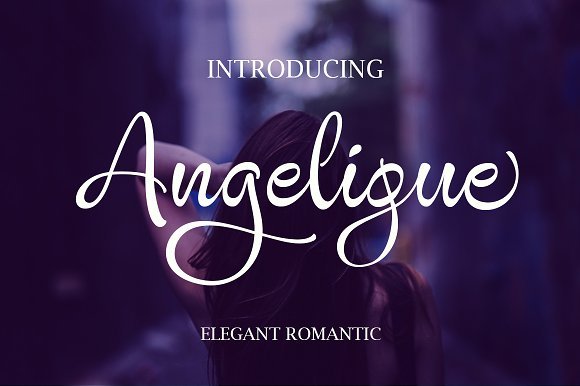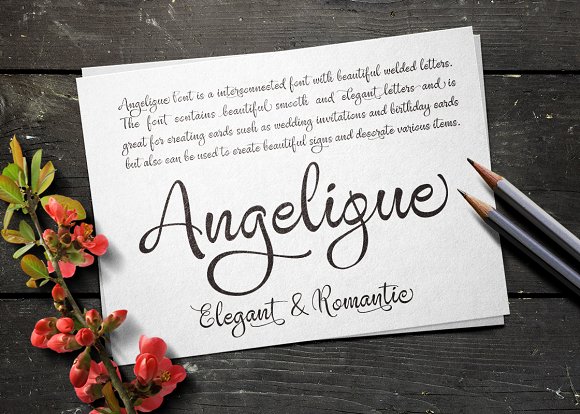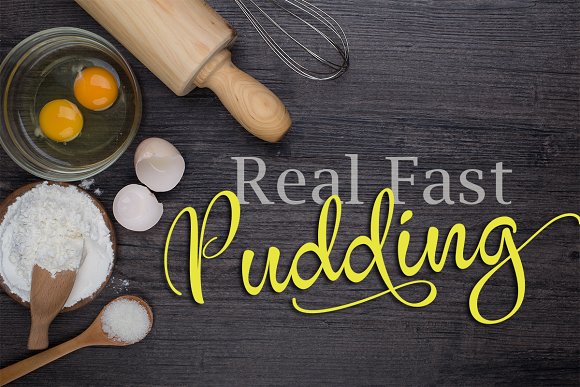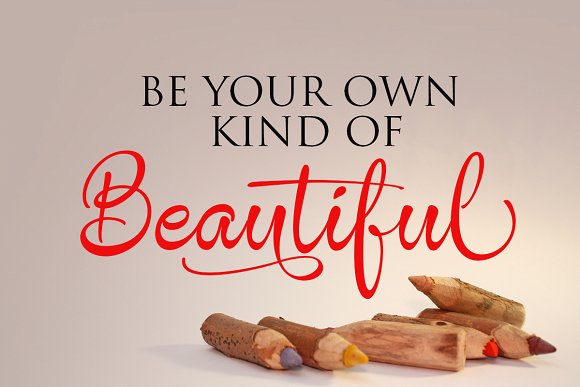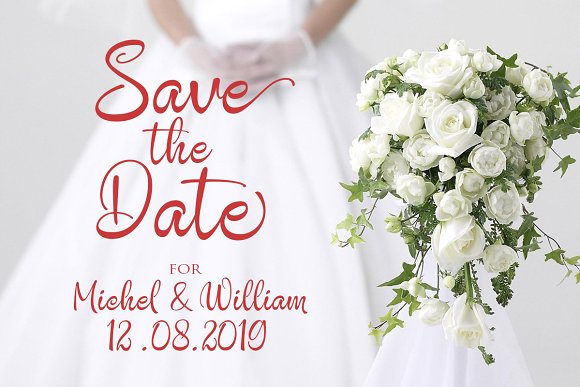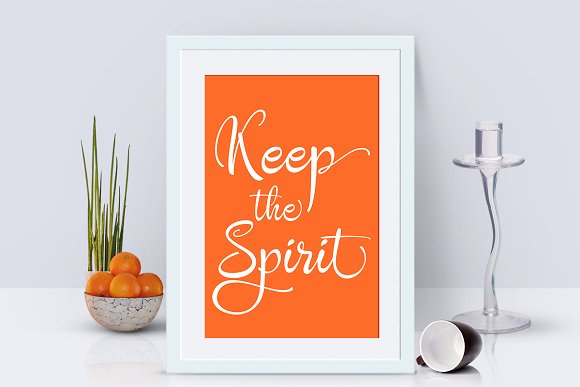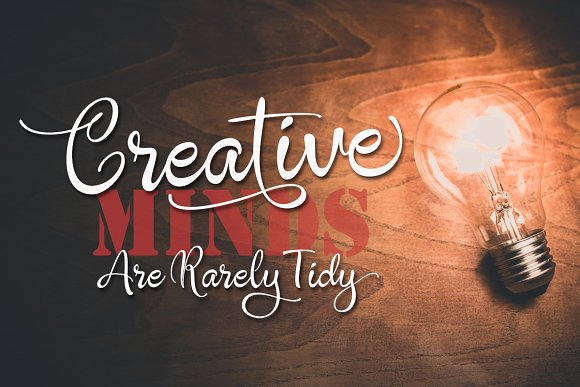
The Magic of Handwritten Fonts: Unleashing Creativity with Angelique Font
Do you ever get that spark of creativity when you’re brainstorming a new design project? The ideas flow, and you feel like you’re on top of the world? For designers, those moments are what make it all worth it. And, sometimes, it’s the perfect font that brings it all together.
That’s where the Angelique Font comes in – a stunning interconnected handwritten font that’s sure to bring a smile to your face. Its unique design, where letters seamlessly weld together, makes it a joy to work with. Whether you’re designing a logo, a poster, or a wedding invitation, Angelique Font is the perfect companion to help you bring your ideas to life.
- Unique Characteristics: Angelique features a unique, elegant script design with subtle flair and connections between letters, making it suitable for invitations, wedding stationery, and other formal events.
Angelique Font Review
Overall, I’d say Angelique Font is a solid choice for your next design project. Here’s what works well:
- ✨ Elegant and sophisticated feel: This font exudes refinement and poise, perfect for high-end branding, luxury products, or sophisticated marketing materials.
- ✨ Beautiful script and cursive connections: The flowing connections between letters create a sense of continuity and fluidity, making it ideal for headings, titles, and quotes.
- ✨ High legibility: Despite its elegant appearance, Angelique Font is surprisingly easy to read, even at smaller font sizes.
That being said, there are a few limitations to consider:
- ⚠️ Limited language support: As with many fonts, Angelique Font may not support certain languages or characters, which could be a issue for multilingual projects.
- ⚠️ May not be ideal for body text: While the font is legible, it’s still a script font, which can make it difficult to read large blocks of text.
- ⚠️ May require additional styling: Depending on your project’s requirements, you may need to add additional styling or modifications to make the font work effectively.
Overall, I think Angelique Font is a great choice for projects where elegance and sophistication are key. Just be aware of its limitations and adjust your design approach accordingly.
The Angelique font is perfect for:
– Luxury brand logos and marketing materials
– High-end product packaging and labels
– Elegant greeting cards and gift tags